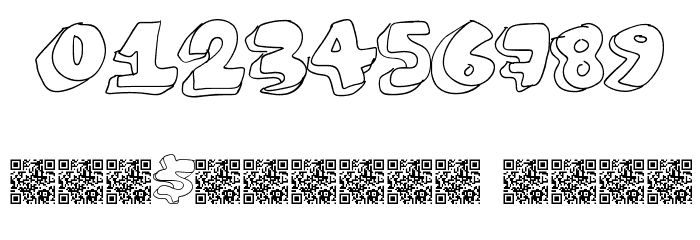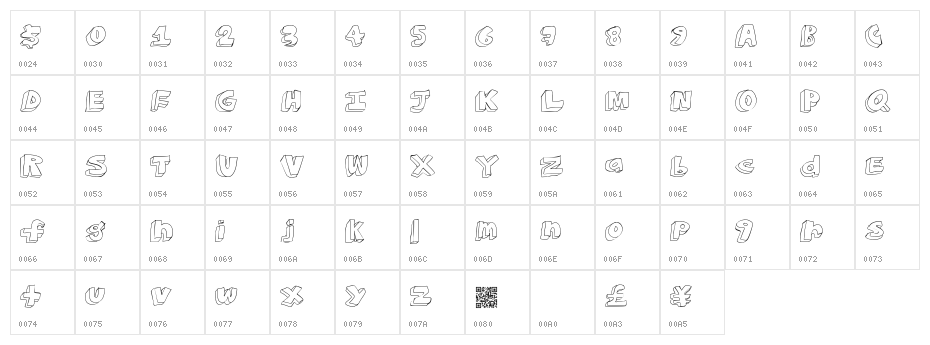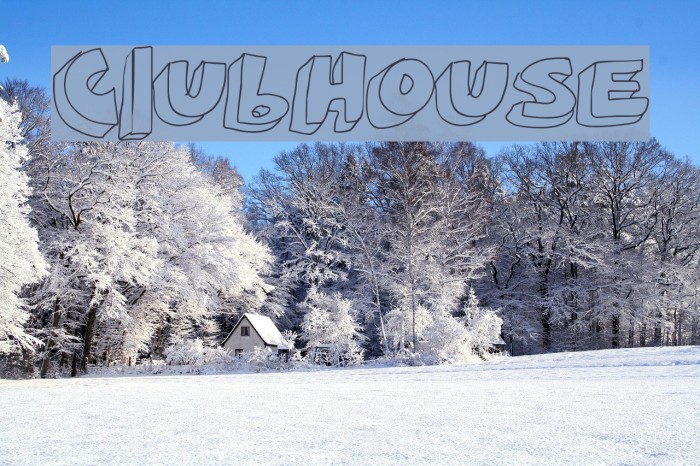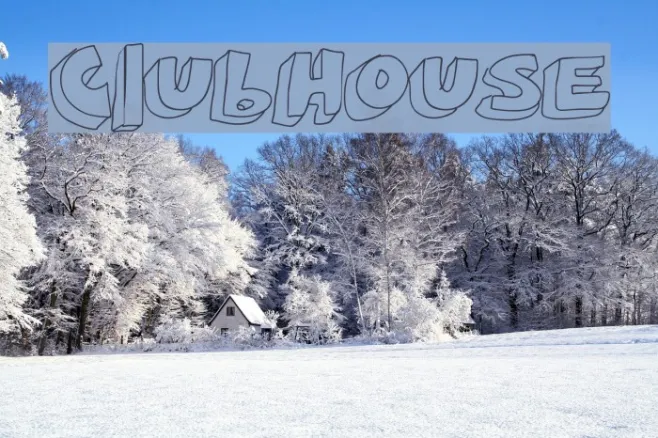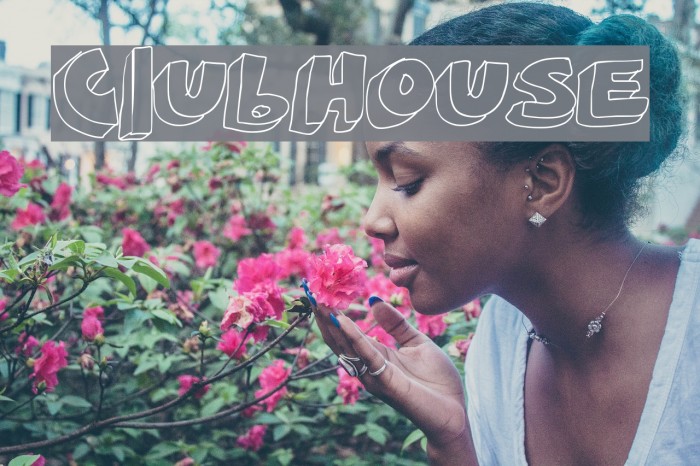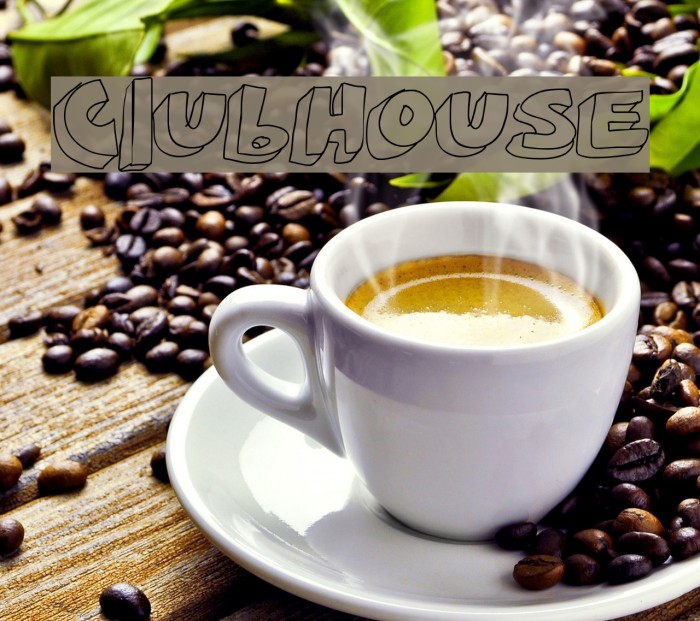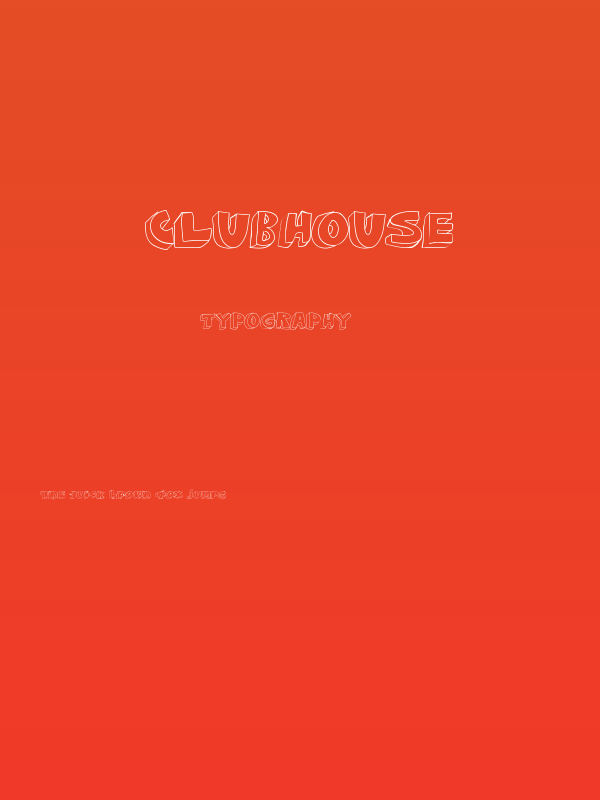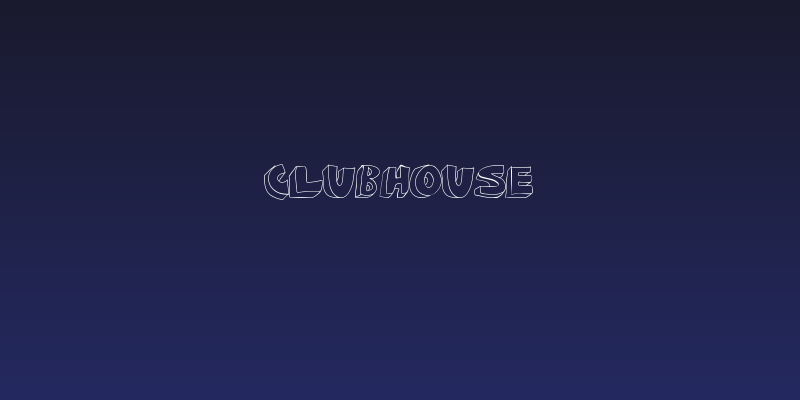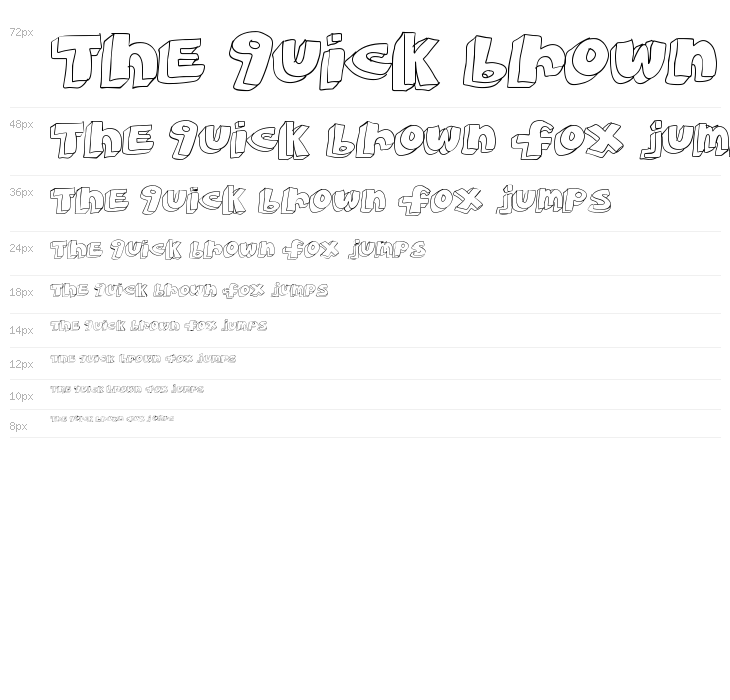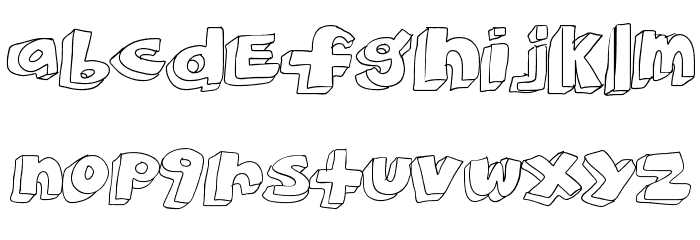
ClubHouse Font
ClubHouse Description
This playful and bold font features a three-dimensional, cartoonish style with thick outlines that give each character a sense of depth and volume. The letters are designed with a hand-drawn aesthetic, creating a lively and informal appearance. The uppercase and lowercase letters maintain a consistent style, with rounded edges and exaggerated curves. Numbers and special characters follow the same design principles, ensuring a cohesive look across all elements. This font's unique style makes it ideal for projects that require a fun and engaging visual impact.
| Overall Style | Playful, Cartoonish |
| Proposed Projects | Ideal for children's books, comic strips, playful branding, and event posters. |